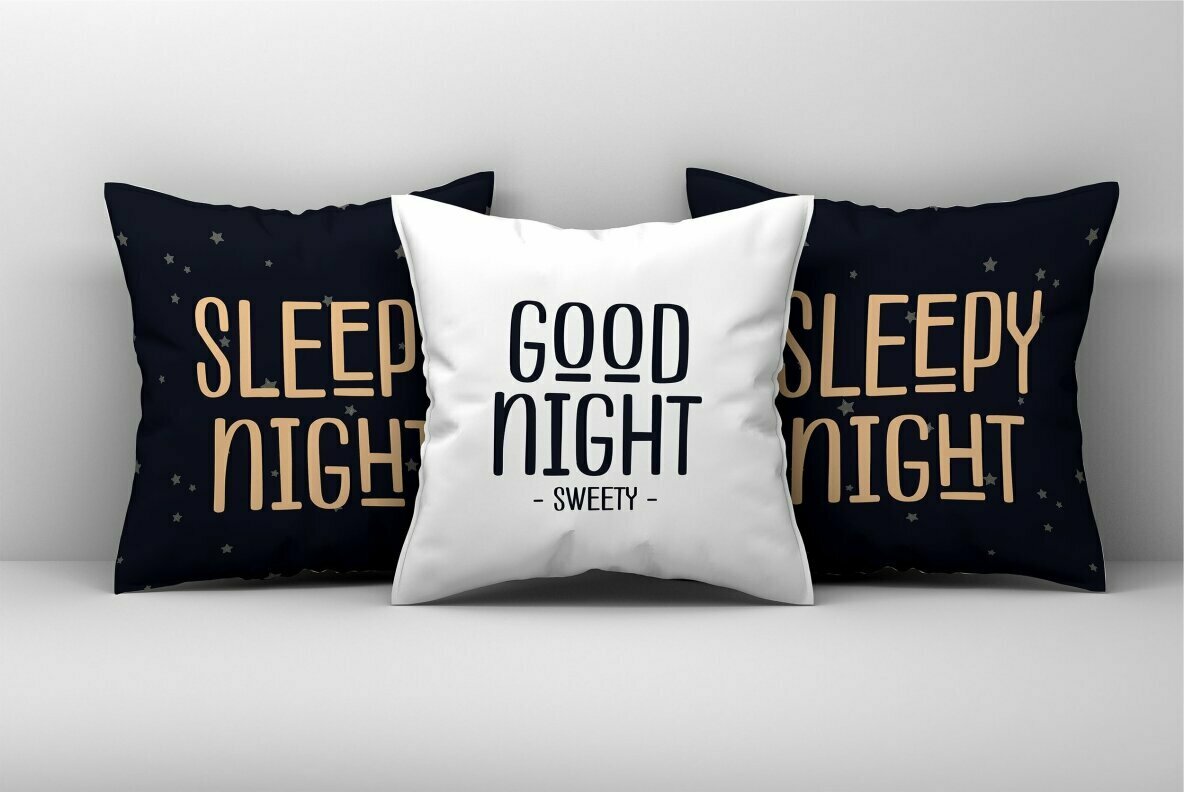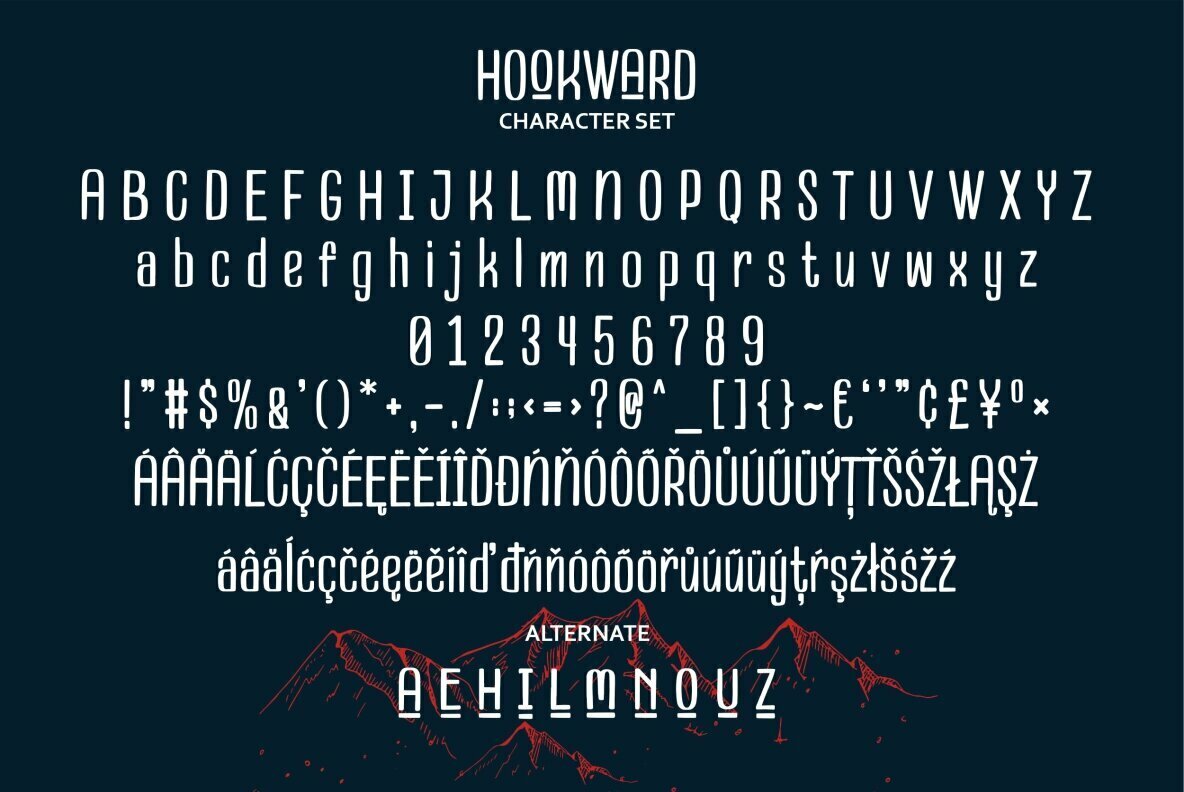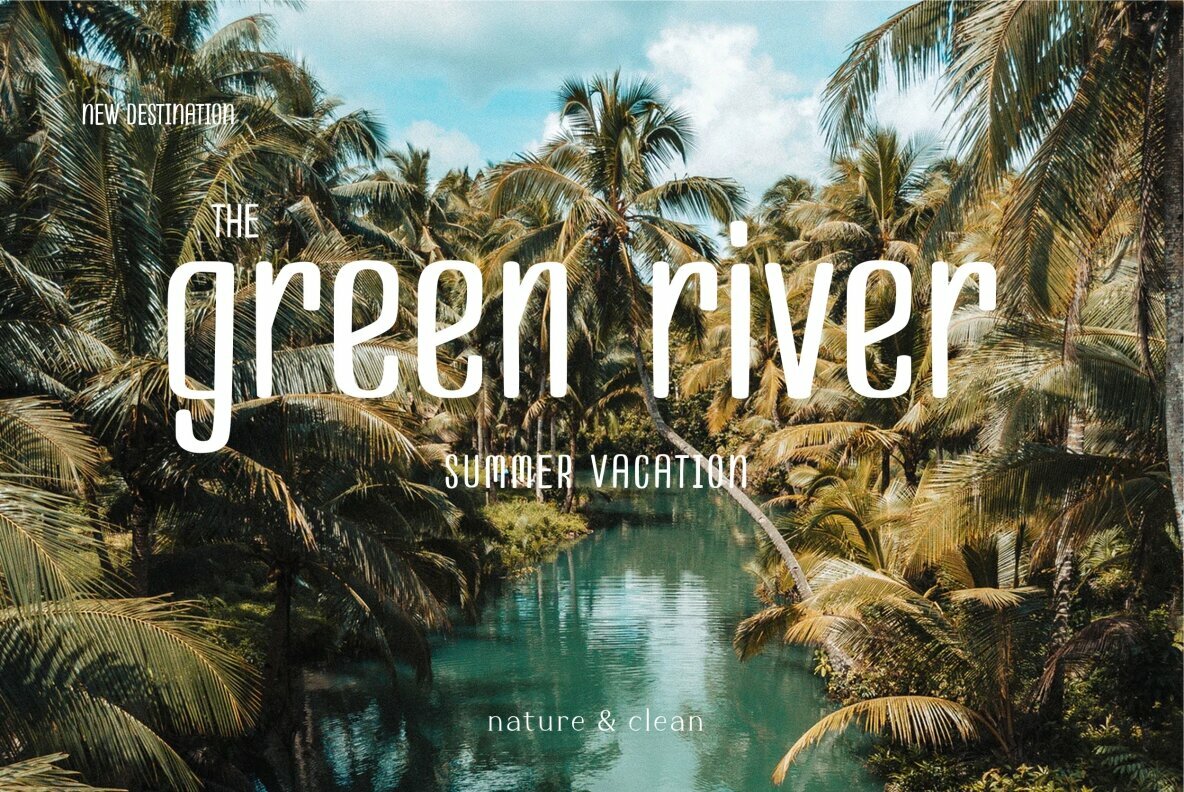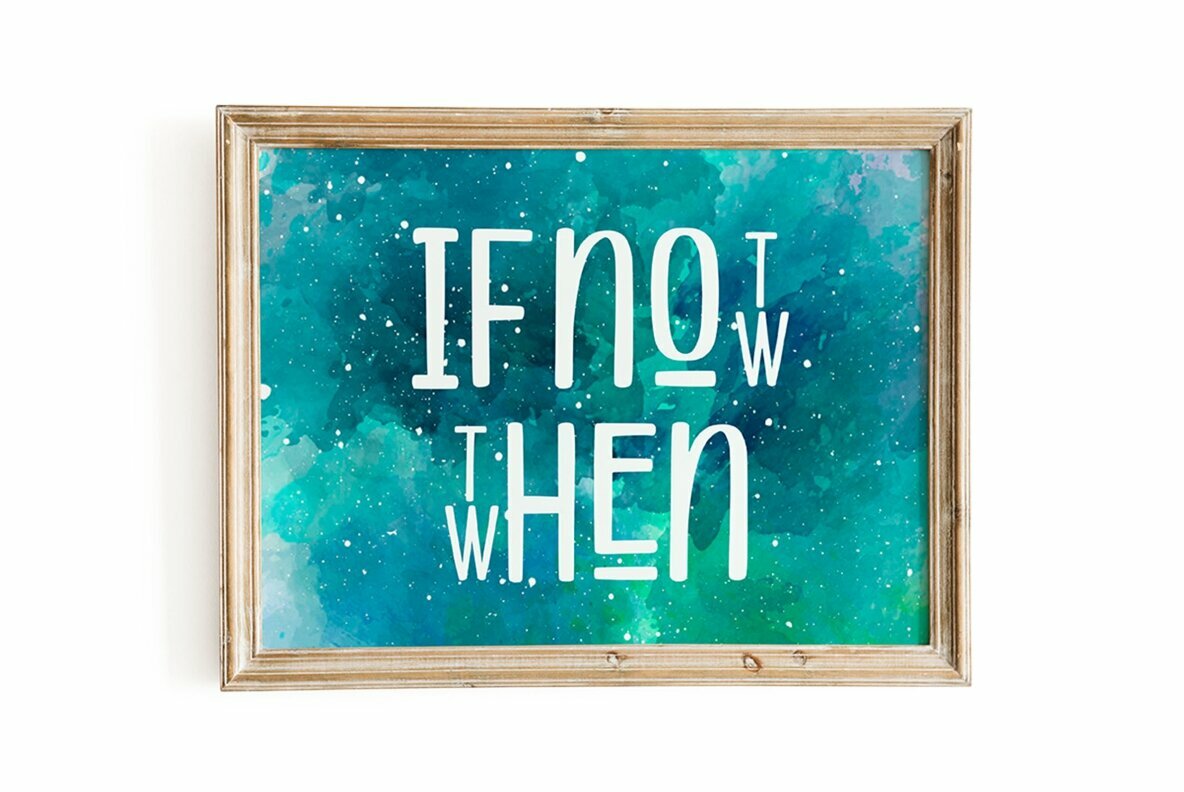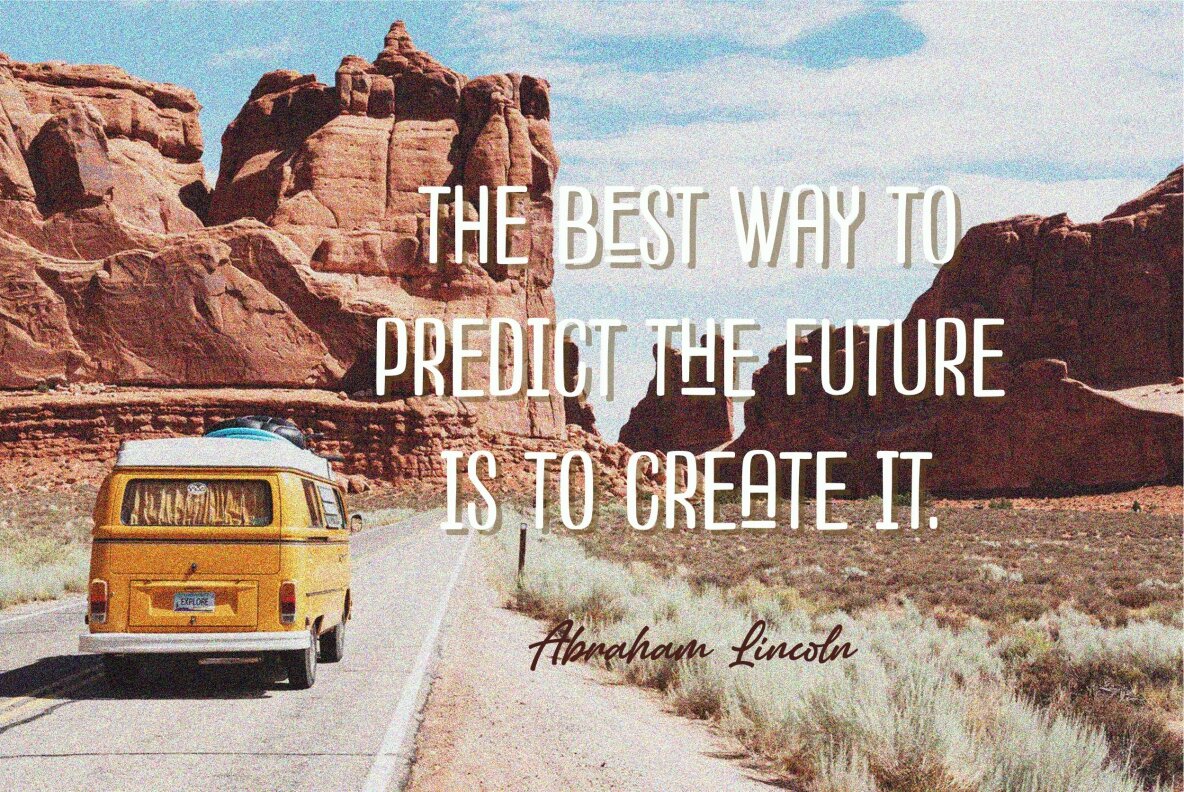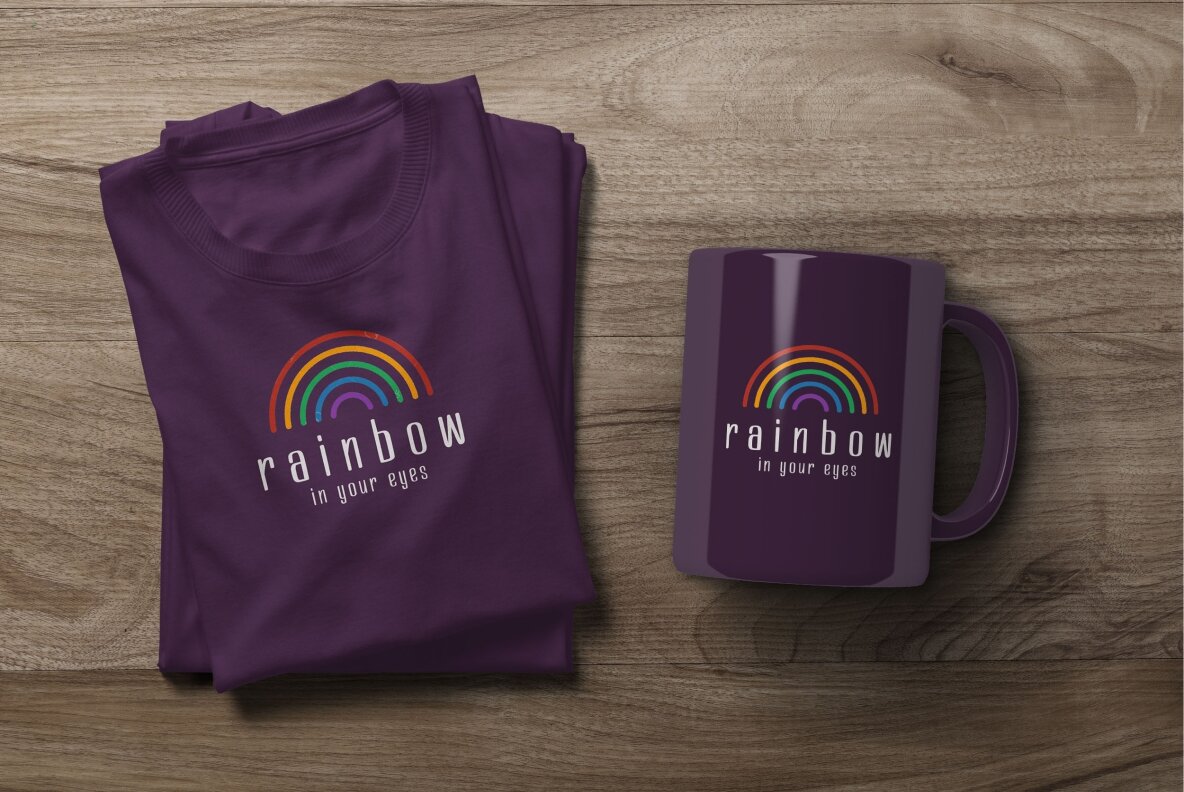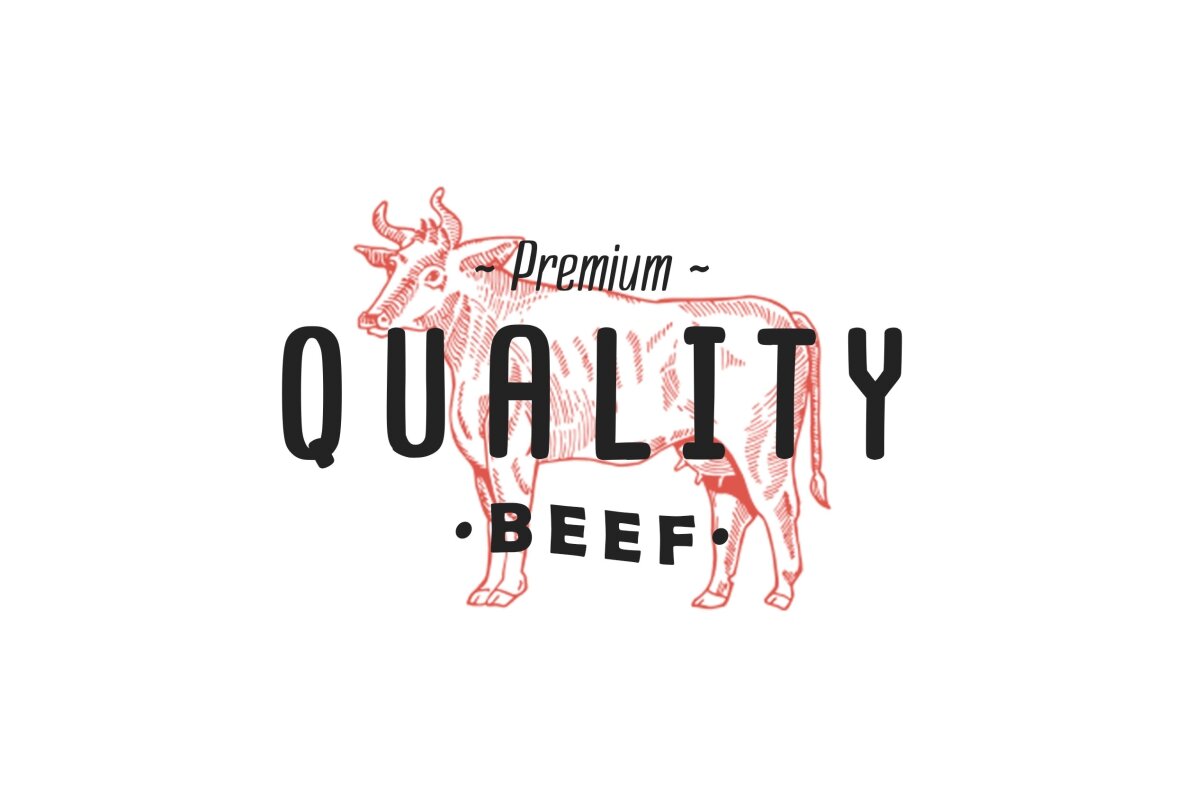
Hookward Font
Hookward
Hookward emerges as a compelling choice for designers seeking a modern, impactful typeface suitable for various design elements, including magazine covers, posters, and branding materials. Its sleek, strong display and refined structure add distinctive character to text. It draws inspiration from contemporary sports typography, capturing the essence of a cool, modern headline aesthetic.Hookward: Modern Condensed Typeface for Bold Headlines
This condensed typeface is perfect for modern design, offering clarity and style in one package.